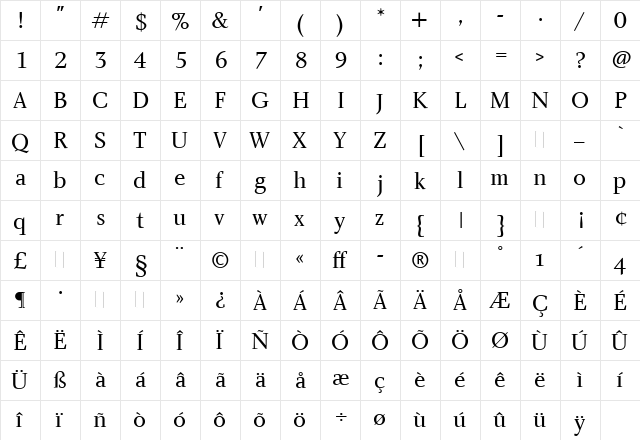
Charlotte Book Regular
Charlotte Book takes a measured approach to typography — its balanced proportions and neutral character make it a reliable workhorse for both digital and print work.